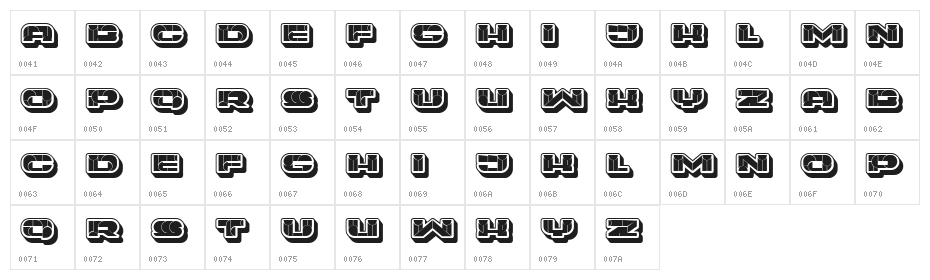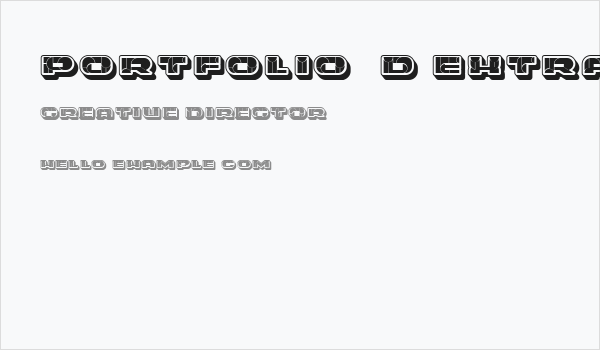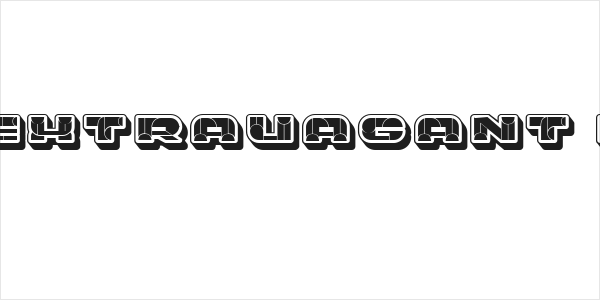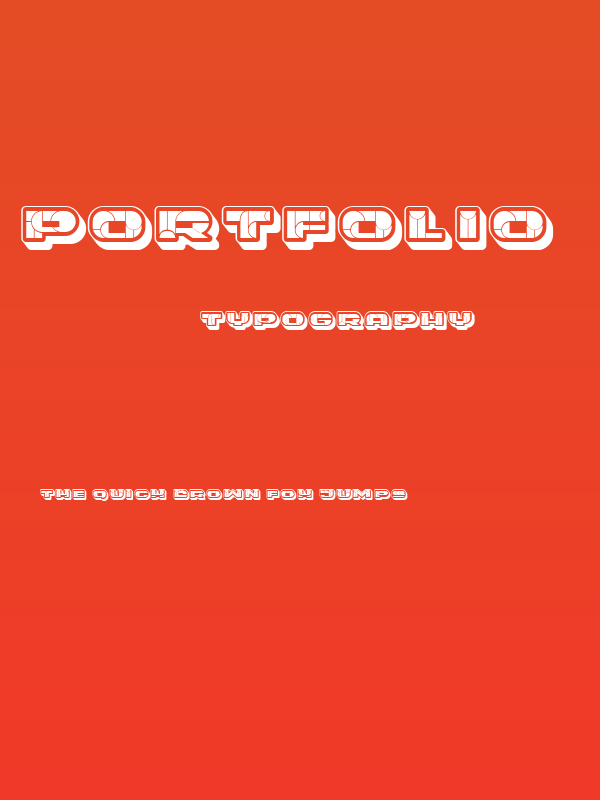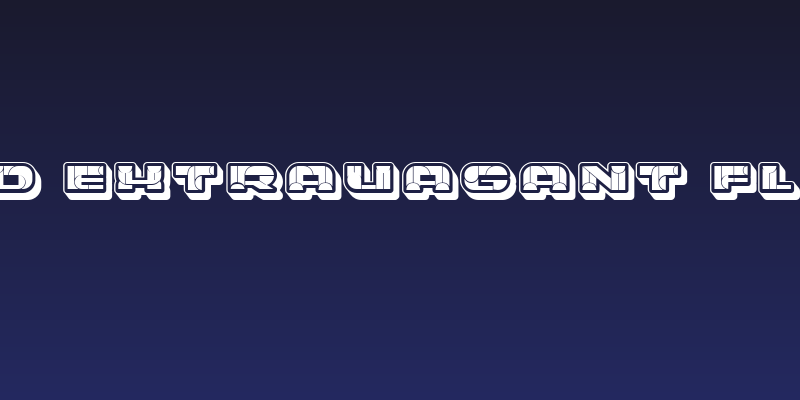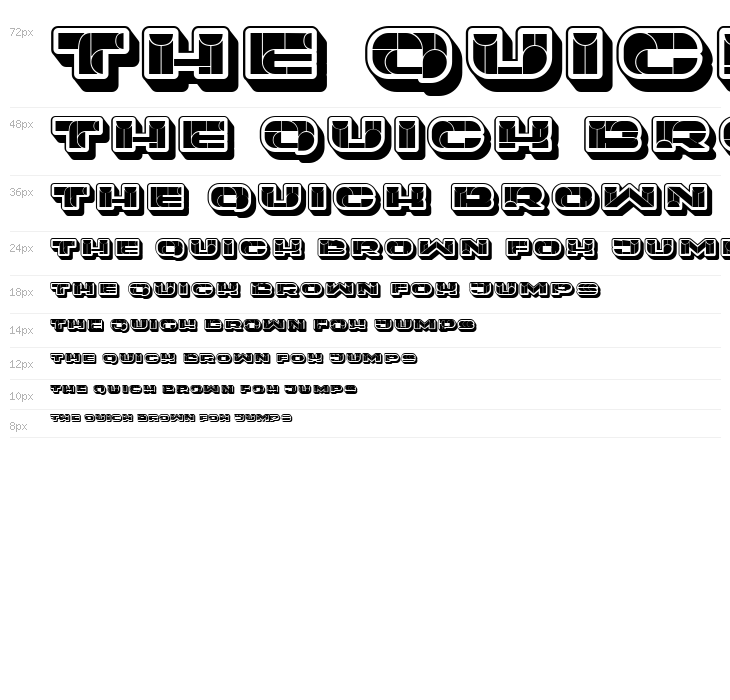
Portfolio 3D Extravagant Flat Regular Font
Portfolio 3D Extravagant Flat Regular Description
This font features a bold, three-dimensional appearance with a flat, extravagant style. Each character is designed with a thick outline and an inner shadow effect that gives it a striking, layered look. The geometric shapes and sharp angles contribute to its modern and dynamic feel, making it stand out in any design. The uppercase letters are particularly prominent, with a consistent width and height that ensure uniformity across the typeface. The font's unique style is both eye-catching and versatile, suitable for a variety of creative applications.
| Proposed Projects | Ideal for posters, logos, headlines, and any design requiring a bold, standout typeface. |